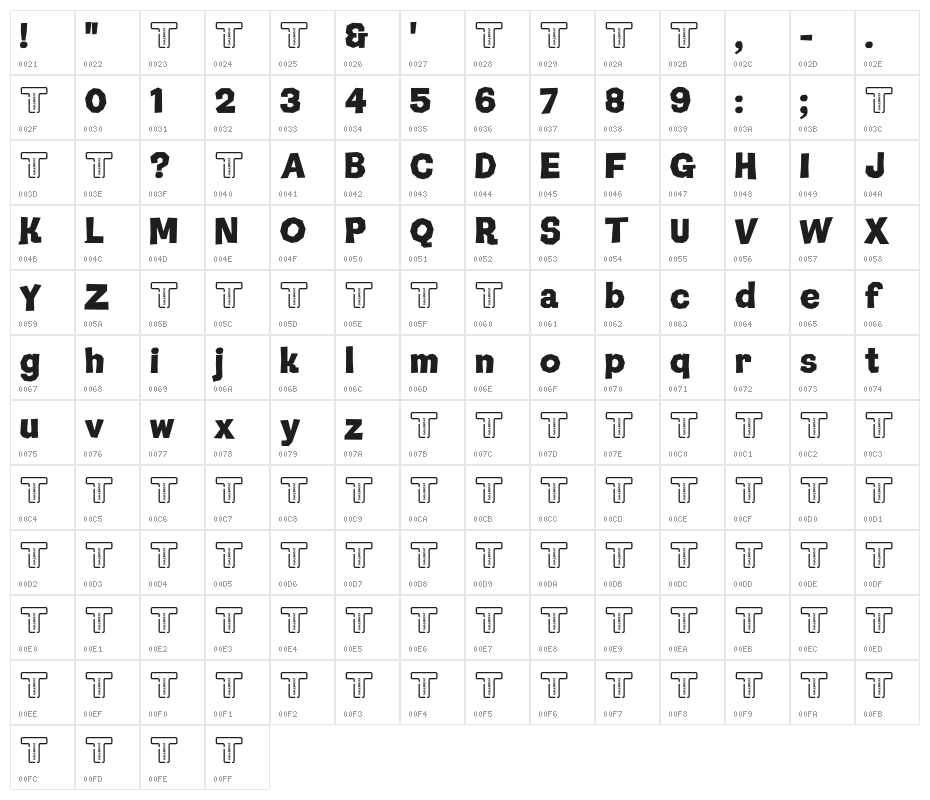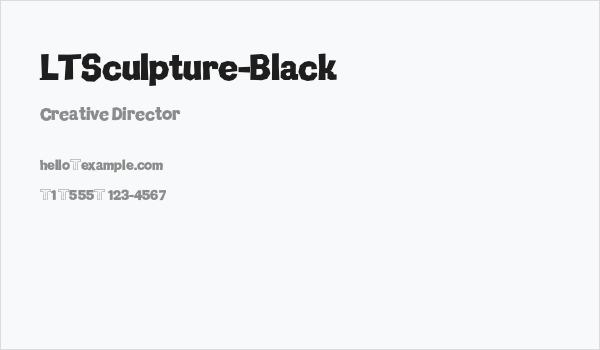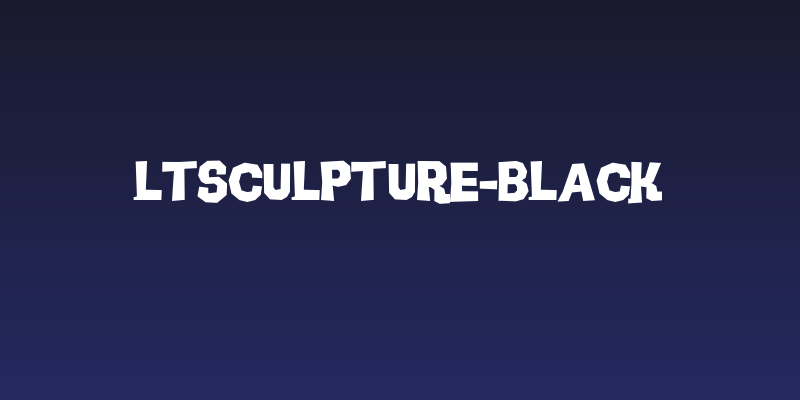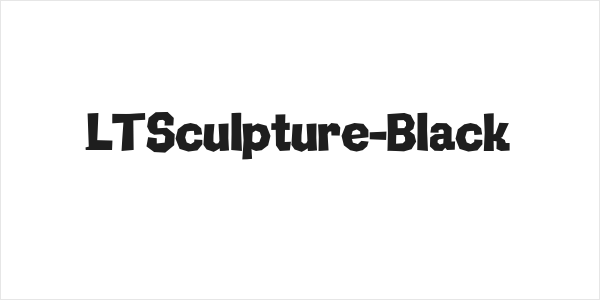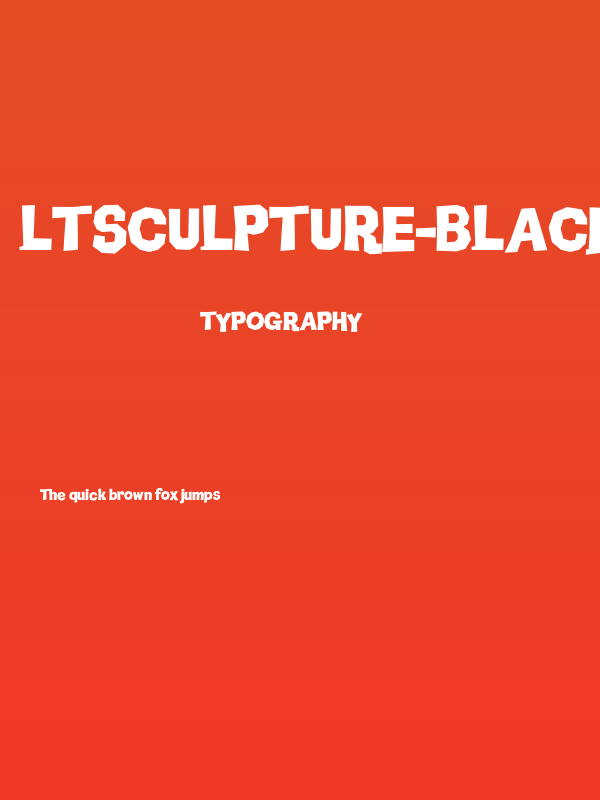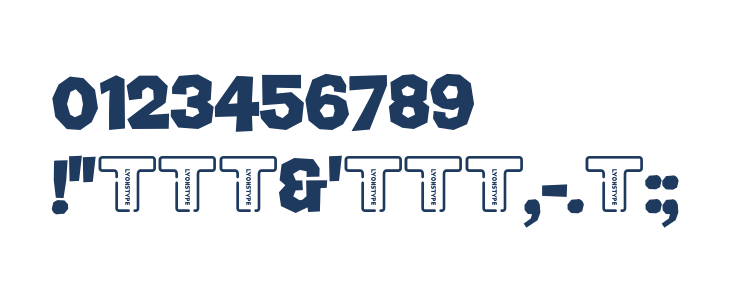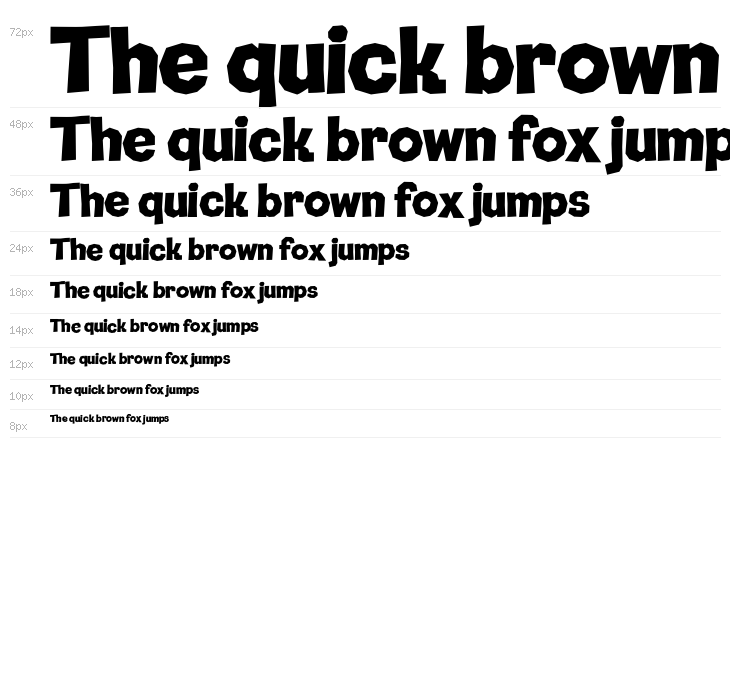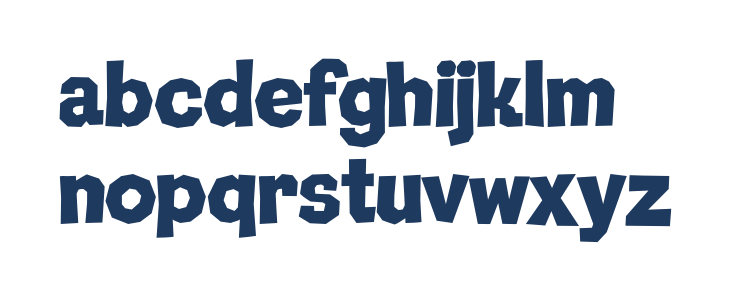
LTSculpture-Black Font
LTSculpture-Black Description
This font features a bold, sculptural design with a strong, impactful presence. The characters are crafted with irregular, angular edges, giving them a unique, hand-carved appearance. The uppercase and lowercase letters maintain a consistent weight, contributing to a cohesive look. Numbers and special characters follow the same stylistic approach, ensuring uniformity across all glyphs. The font's distinctive style makes it ideal for projects that require a bold statement or artistic flair.
| Overall Style | Modern, Artistic |
| Proposed Projects | Perfect for posters, album covers, branding, and artistic projects that need a strong visual impact. |